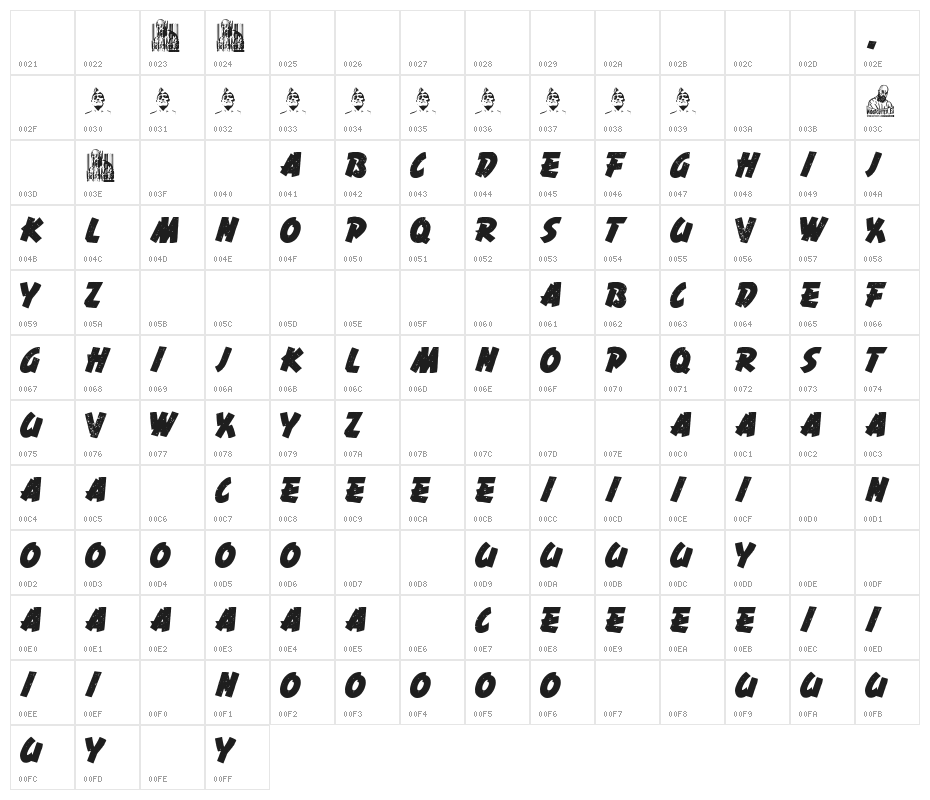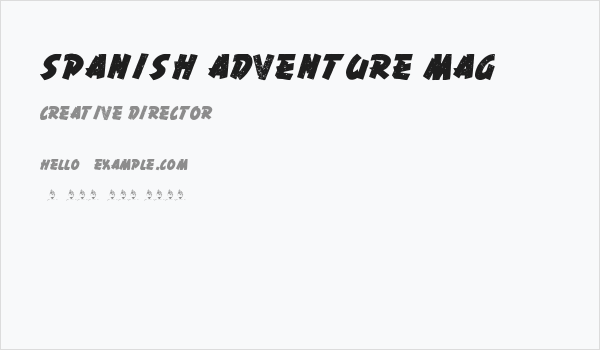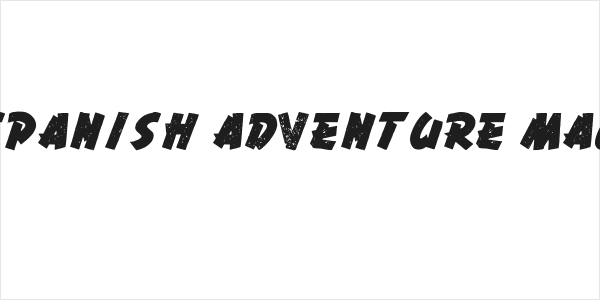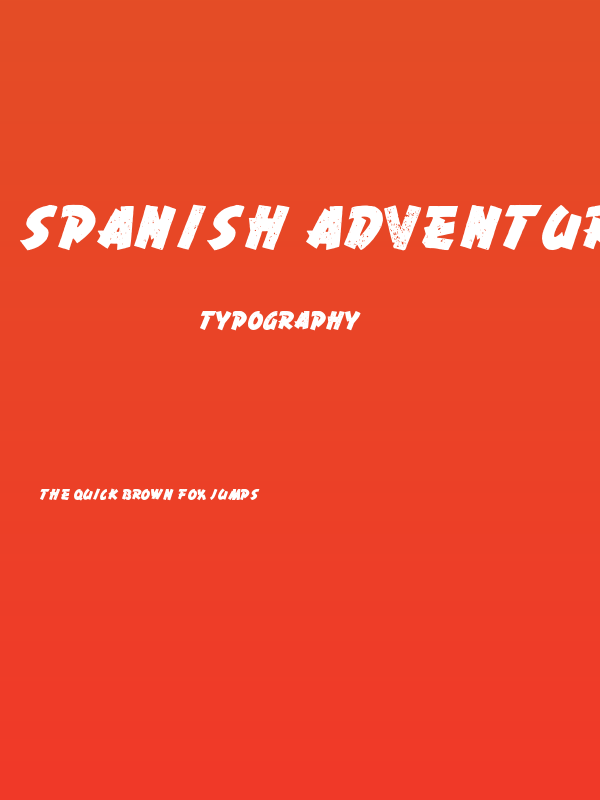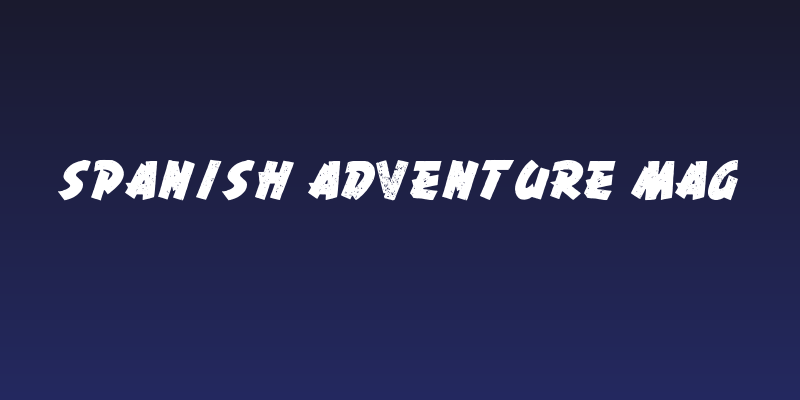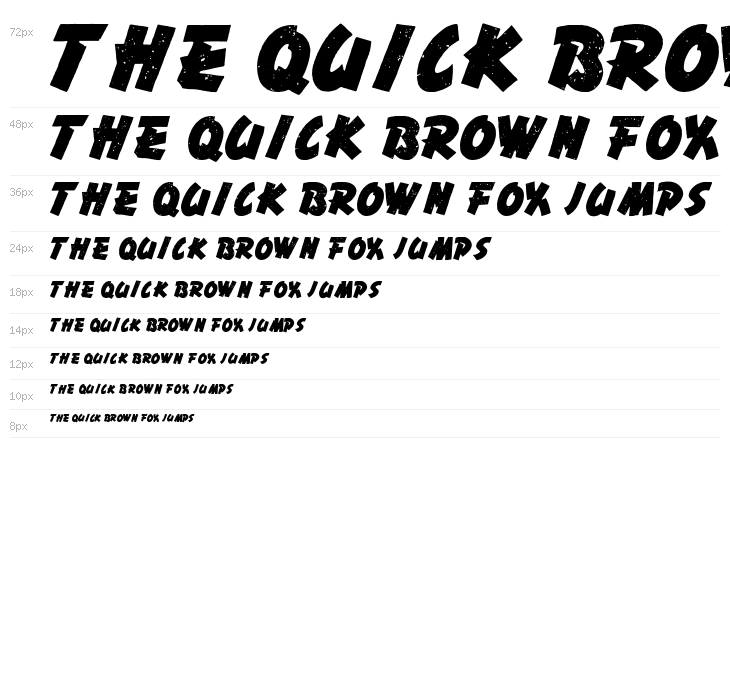
Spanish Adventure Mag Font
Spanish Adventure Mag Description
A bold, distressed display font with heavy, angular letterforms and a rough, textured appearance, evoking a sense of adventure and ruggedness. The characters are uppercase only, with irregular edges and a dynamic, energetic style.
| Overall Style | Decorative, Rugged, Adventure |
| Use Case | Headlines, Posters, Logos, Titles |
| Proposed Projects | Adventure-themed posters, comic book titles, event flyers, video game graphics, branding for outdoor or extreme sports. |